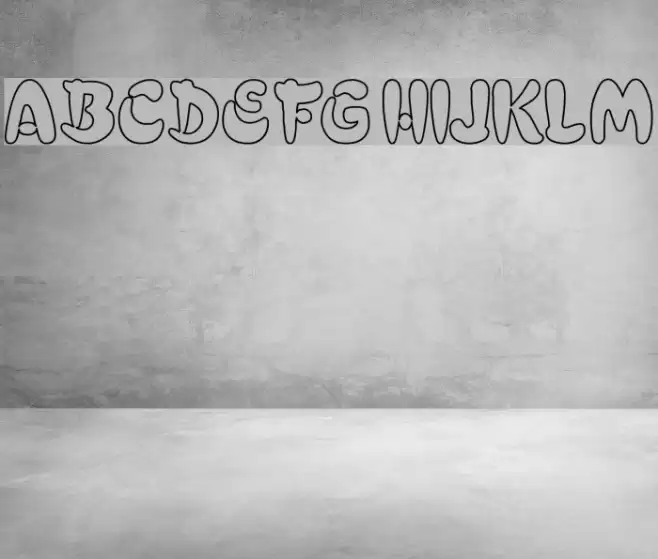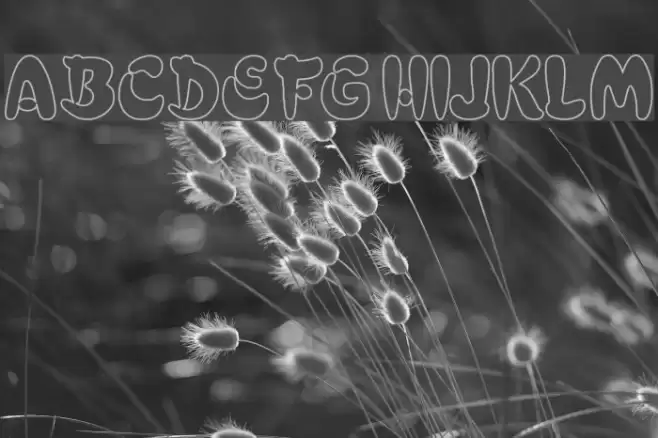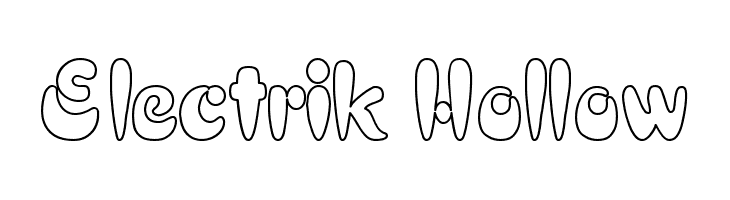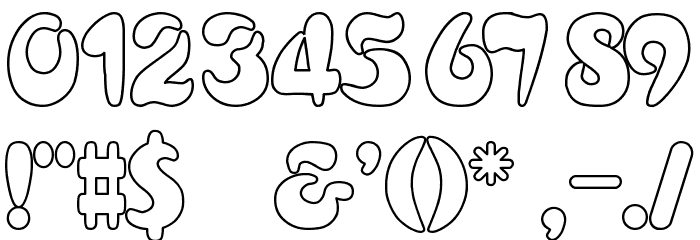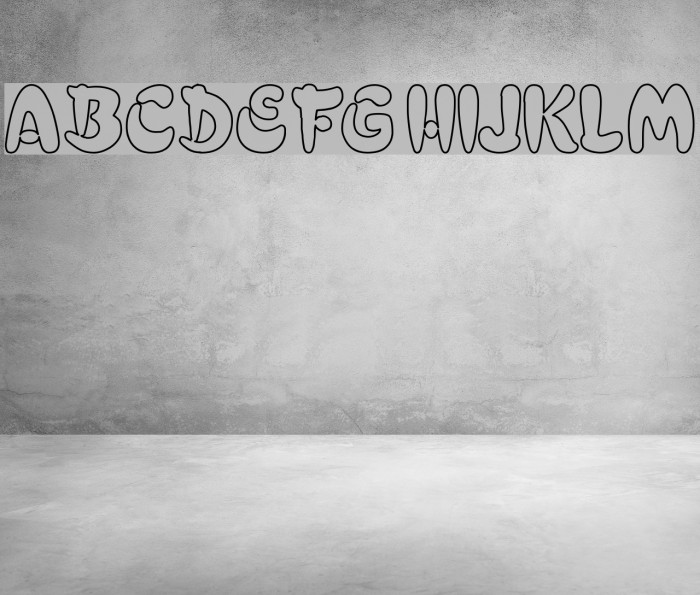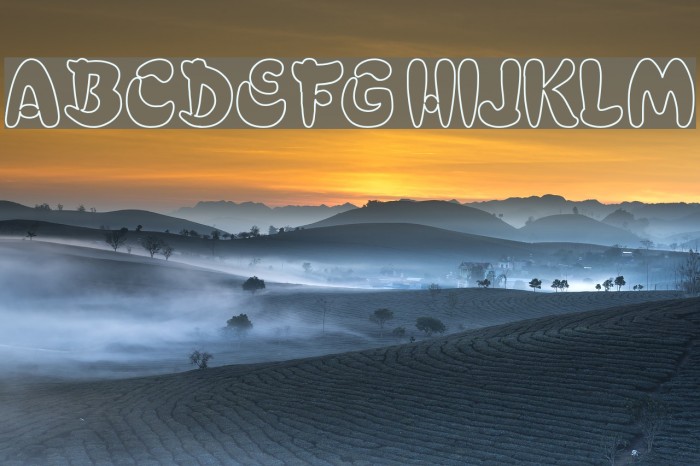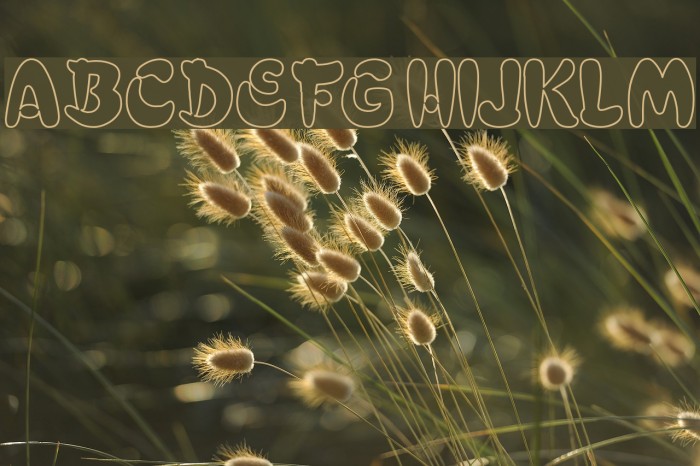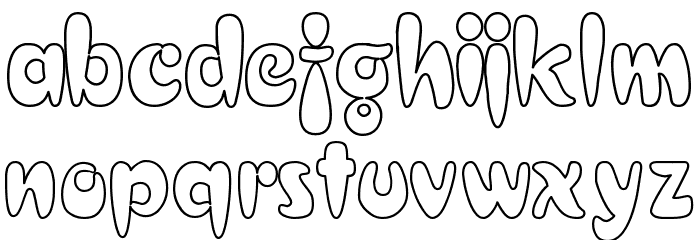
Electrik Hollow Font
Electrik Hollow Description
This font features a playful and bold hollow design, characterized by its thick outlines and rounded shapes. The letters are evenly spaced, creating a balanced and harmonious appearance. The uppercase and lowercase letters maintain a consistent style, with a whimsical touch that adds a sense of fun and creativity. The numbers and special characters follow the same design principles, ensuring uniformity across all glyphs. This font's unique style makes it stand out, offering a fresh and modern take on traditional typefaces.
A playful, bold hollow font with thick outlines and rounded shapes from Outline fonts.
- Proposed Projects: Ideal for children's books, playful branding, creative posters, and eye-catching headlines.